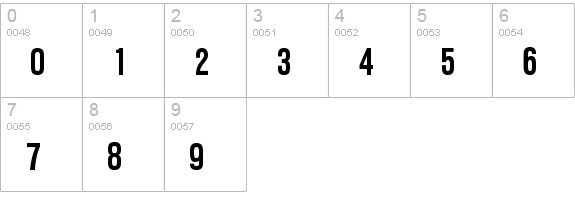
Nimbus Sans T Bold Condensed is a strong, high-contrast, condensed-width variant in the Nimbus typeface family \xE2\x80\x94 well suited to headlines, attention-grabbing titles, and strong calls-to-action.
Nimbus Sans T Bold Condensed is a modern and versatile typeface that exudes confidence and strength. With its bold and condensed design, this font is perfect for making a bold statement in your projects. It is ideal for headlines, posters, and branding materials that require a strong and impactful look. What makes Nimbus Sans T Bold Condensed even more appealing is that it is available for free download at FontsMarket.com. You can easily access this powerful font and enhance your designs with its striking presence. Whether you're working on a print or digital project, Nimbus Sans T Bold Condensed will help you achieve a professional and impactful appearance. Elevate your designs with this impressive typeface and make a lasting impression on your audience.